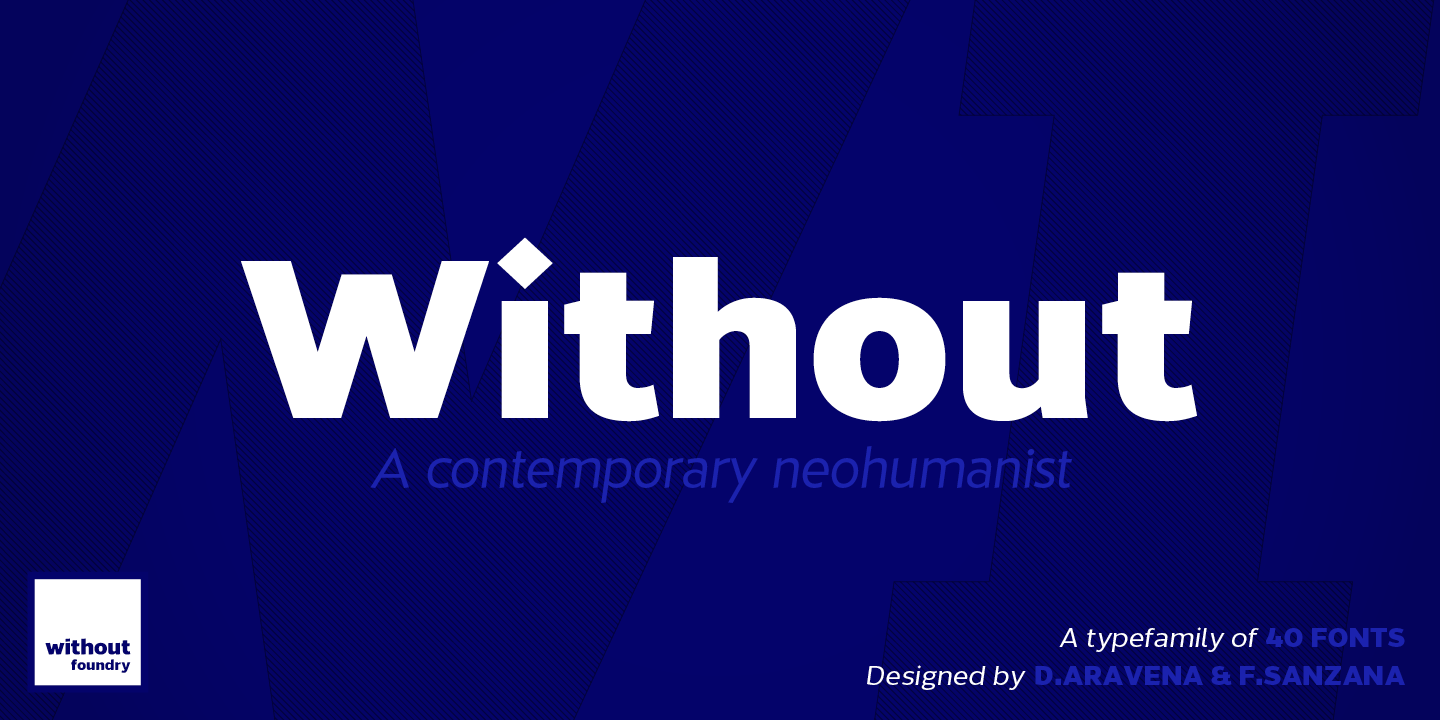
Without Sans Font Free Download is a sleek and minimalistic sans-serif typeface perfect for corporate branding, web design, editorial projects, advertising, and user interfaces. Its clean lines and balanced proportions ensure excellent readability and a contemporary feel.
What makes this font so exciting is its versatility and modern simplicity, allowing it to seamlessly fit into a wide range of design applications. Without Sans Font brings clarity and professionalism to your creative work.
Without Sans Font includes multiple weights such as Light, Regular, Medium, and Bold, offering designers the flexibility to create structured and dynamic typographic hierarchies.
Elevate your designs with the crisp and refined style of Without Sans Font Free Download, and communicate your message with confidence and clarity.